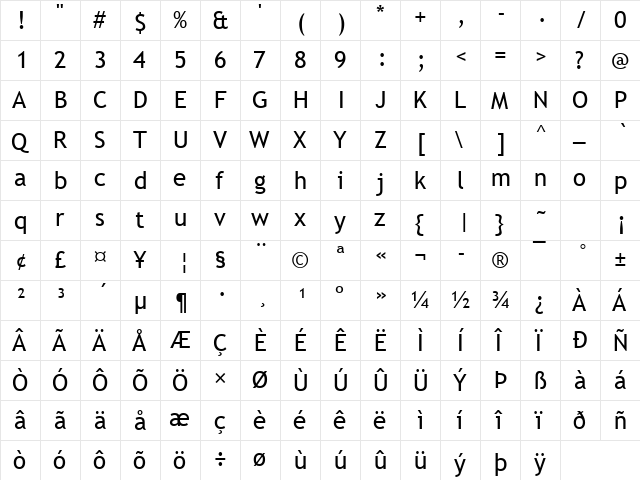
Trebuchet MS Regular
Design Context for Trebuchet MS Typeface
Trebuchet MS offers clean, dependable letterforms without strong stylistic allegiance, making it a practical choice for designers who need flexibility.